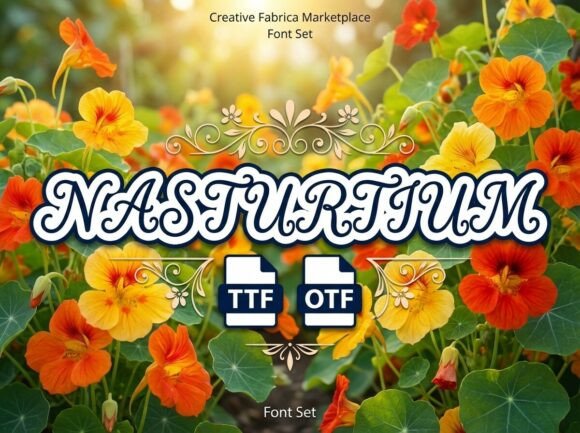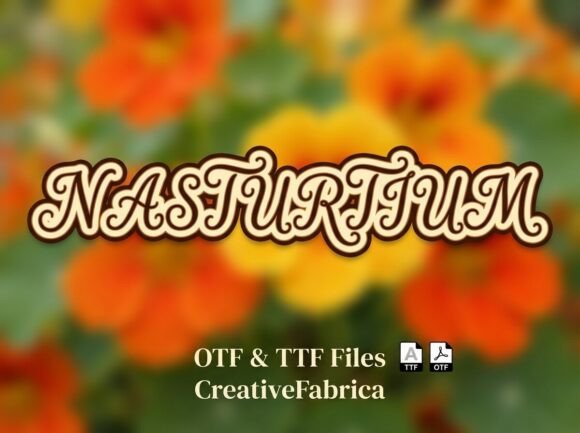
Introduction to Nasturtium Font
As designers, we’ve all been there – staring at a blank canvas, trying to bring a vision to life. But what if you could add a touch of whimsy, a dash of romance, and a pinch of playfulness to your creative project? That’s where the enchanting Nasturtium Font comes in.
With its delicate, cursive script and scalloped outline, this typeface is a design dream come true. Whether you’re working on a boutique branding project, designing wedding stationery, or creating social media headers, Nasturtium Font is the perfect resource to add a touch of elegance and sophistication to your design.
- Unique, hand-drawn style and intricate details make Nasturtium Font a standout design resource for creative projects.
Honest Review: Nasturtium Font
As a designer, I’ve come across many fonts that promise to elevate my creative project. But, not all of them deliver. The Nasturtium Font, however, has impressed me with its unique design and versatility. ✨
One of the standout features of this font is its transparent background, which makes it perfect for creating eye-catching graphics and designs. The high-quality design and crisp lines make it a valuable resource for any design project. I’ve used it for a variety of projects, from logos to social media graphics, and it’s always delivered.
Here are some of the pros and cons of the Nasturtium Font:
- ✨ Unique and versatile design
- ✨ High-quality design and crisp lines
- ✨ Transparent background
- ⚠️ May not be suitable for formal or traditional projects
- ⚠️ Limited character set
Overall, I’m impressed with the Nasturtium Font and would highly recommend it to designers looking for a creative and unique design resource. Just be aware of its limitations, and you’ll be all set to create amazing designs.
Some tips for getting the most out of the Nasturtium Font include using it in conjunction with other high-quality design elements, such as graphics and images. The Nasturtium Font is commonly used in creative projects that require a unique, artistic touch, such as branding, packaging, and advertising materials.